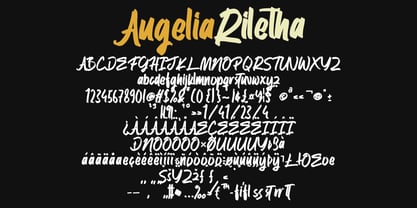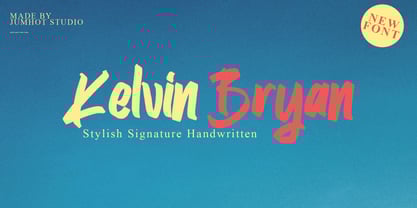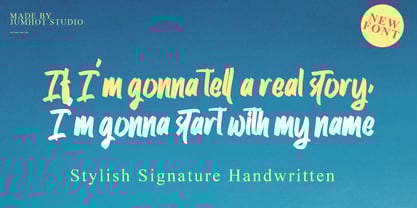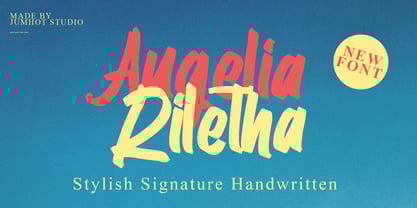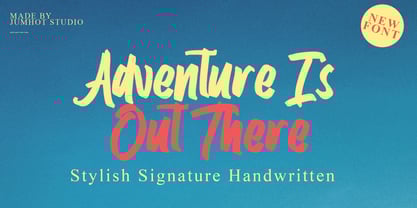
Augelia Riletha
by Pineungtype misinklab
The Augelia Riletha Font Family was designed by Beni Saswita and published by Pineungtype misinklab. Augelia Riletha contains 1 styles. More about this family
Dhoni Trihatmoko payooner recovering Code : P49P14FB Augelia Riletha is a versatile font that brings a fresh style to various projects, including quotes, logos, blog headers, posters, branding, letters, invitations, and stationery. Experience the dynamic elegance of pointed pen mastery with Augelia Riletha. This font transcends mere quality, embodying the essence of pointed pen handwriting as a true masterpiece. The flowing lines and timeless grace of each character reflect the precision and artistry inherent in this refined craft, making it an ideal choice for those seeking sophistication and charm in their designs.